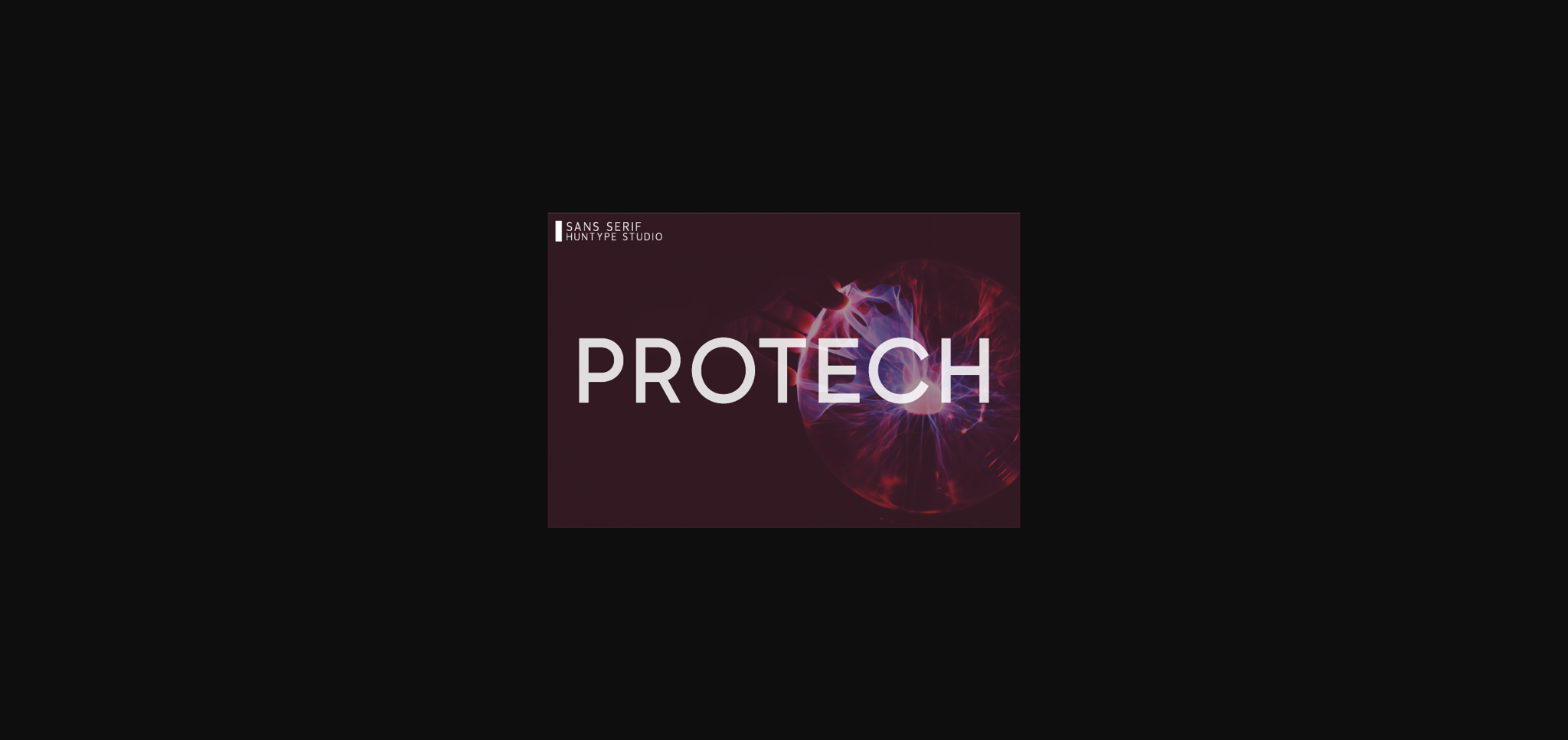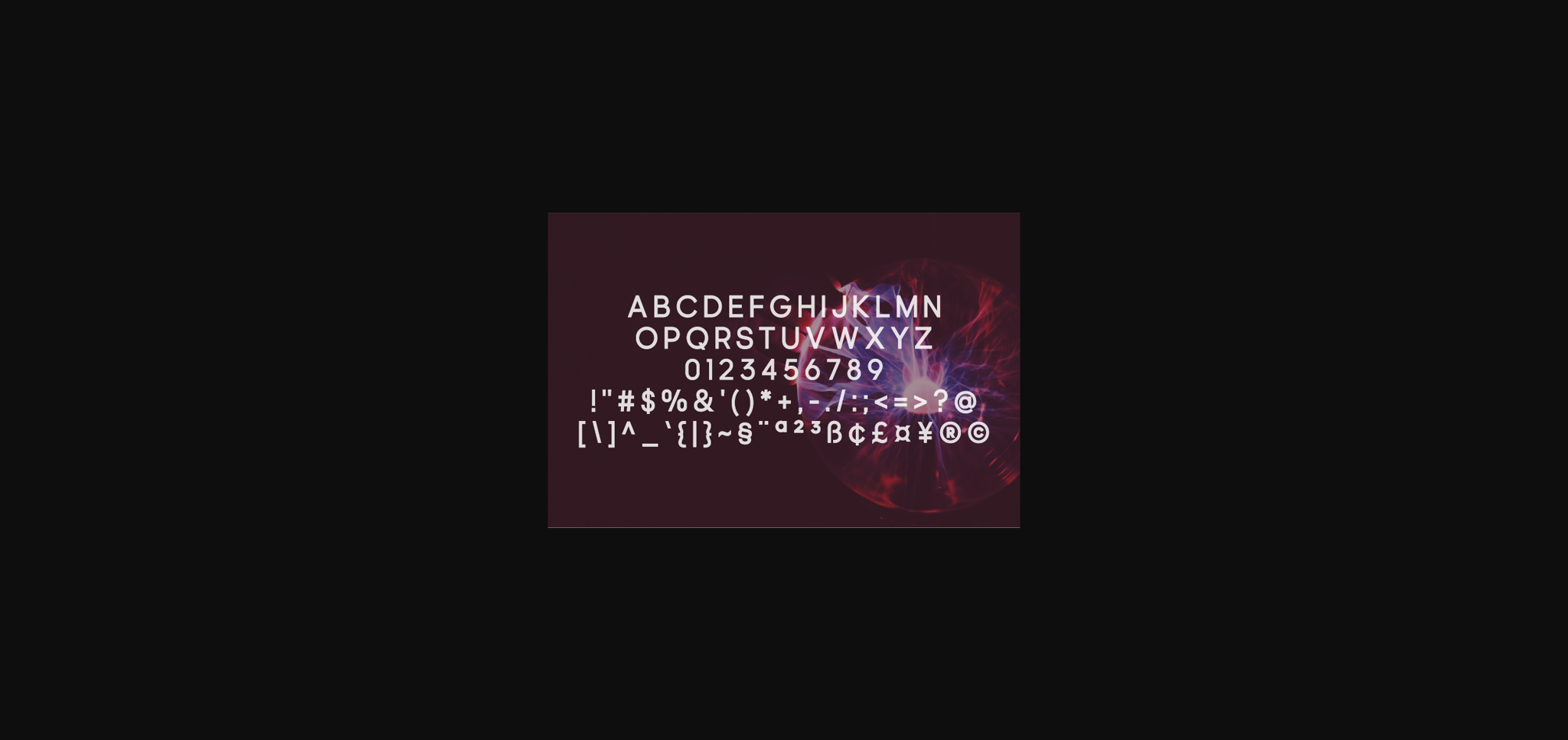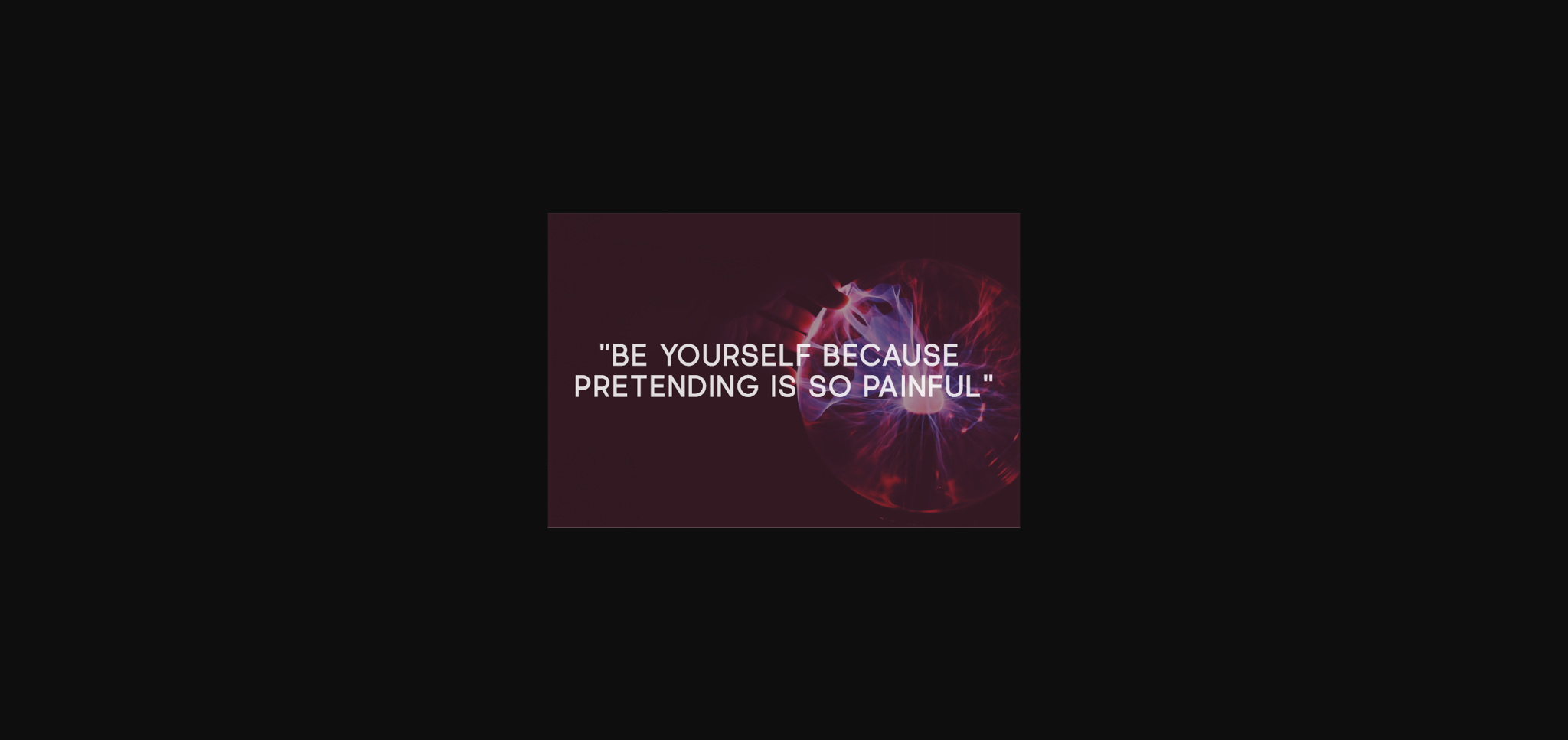
Protech is an elegant sans serif font that will complement every project you’re working on. Protech will very easily become a go-to font, no matter the occasion. The only limit is your imagination!